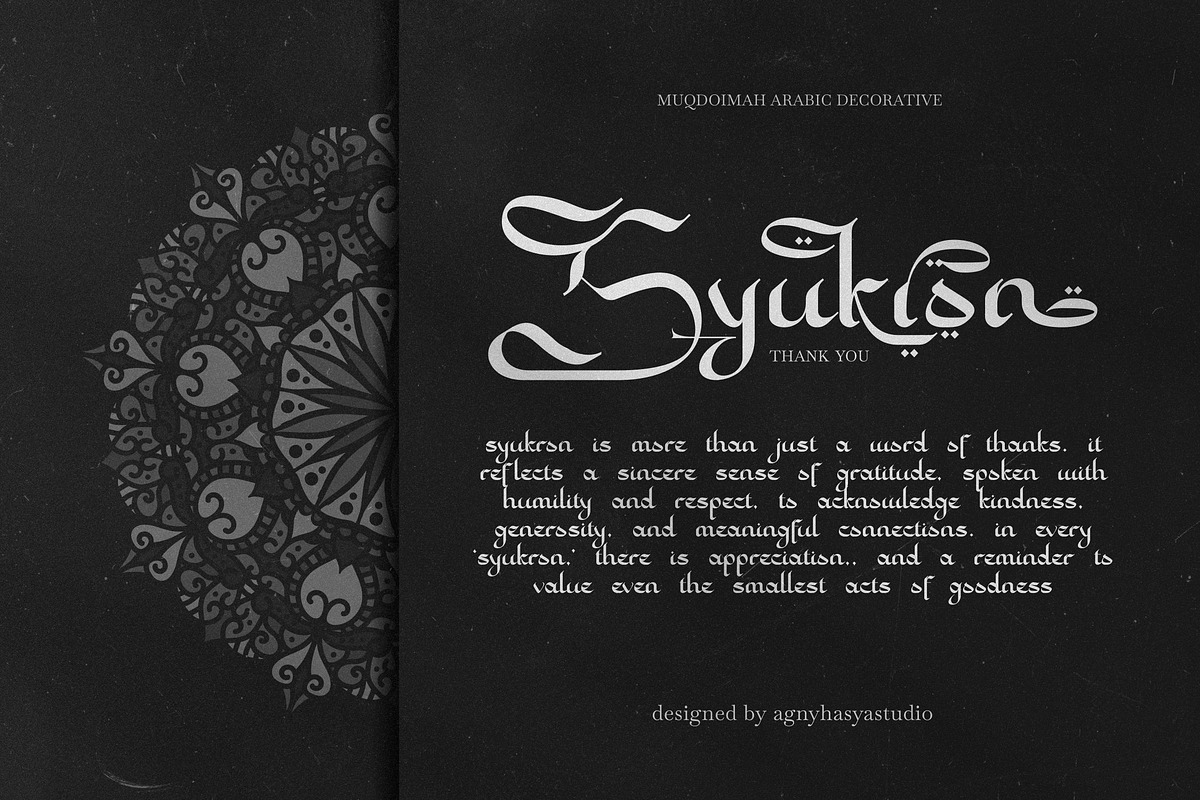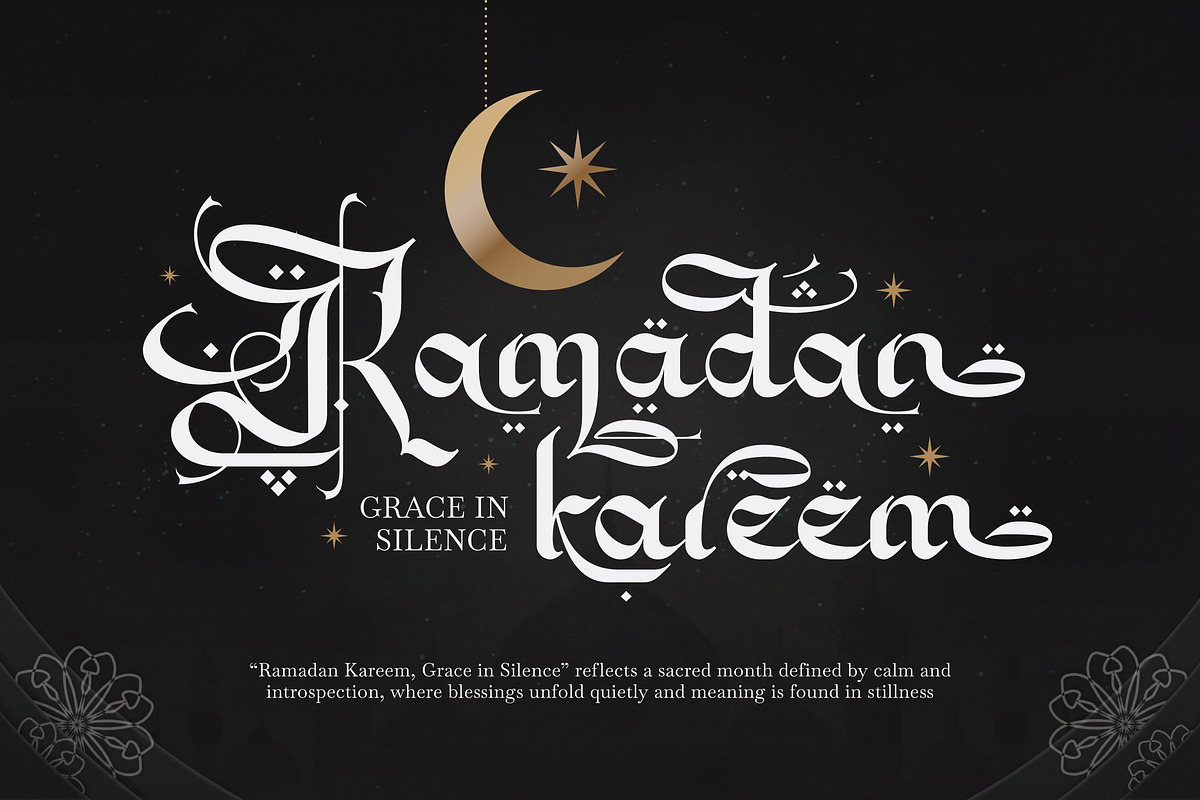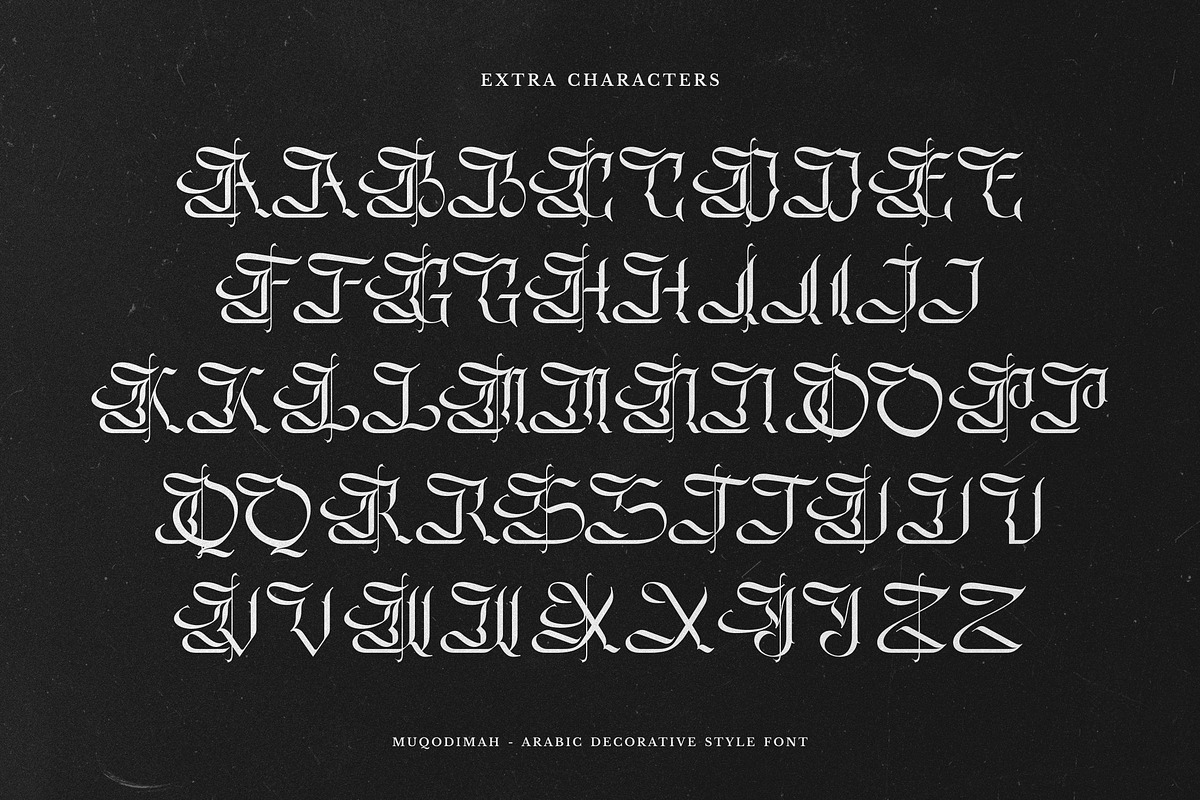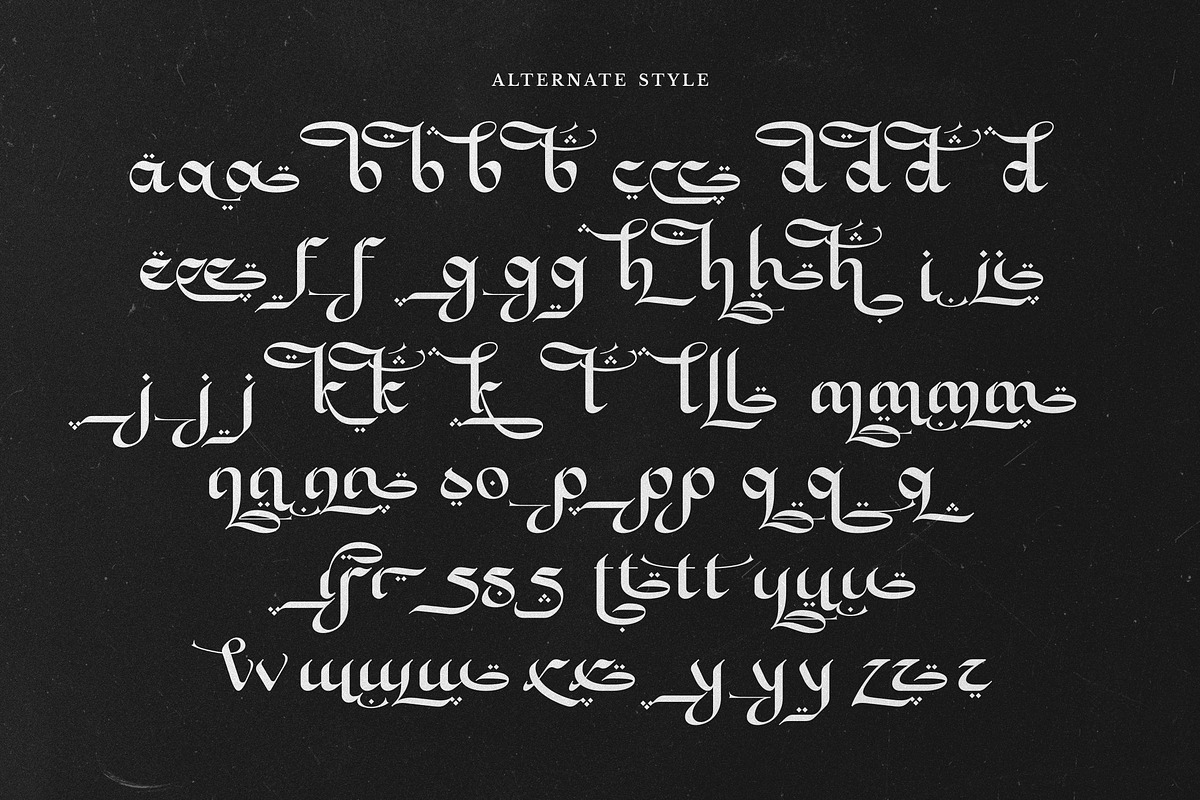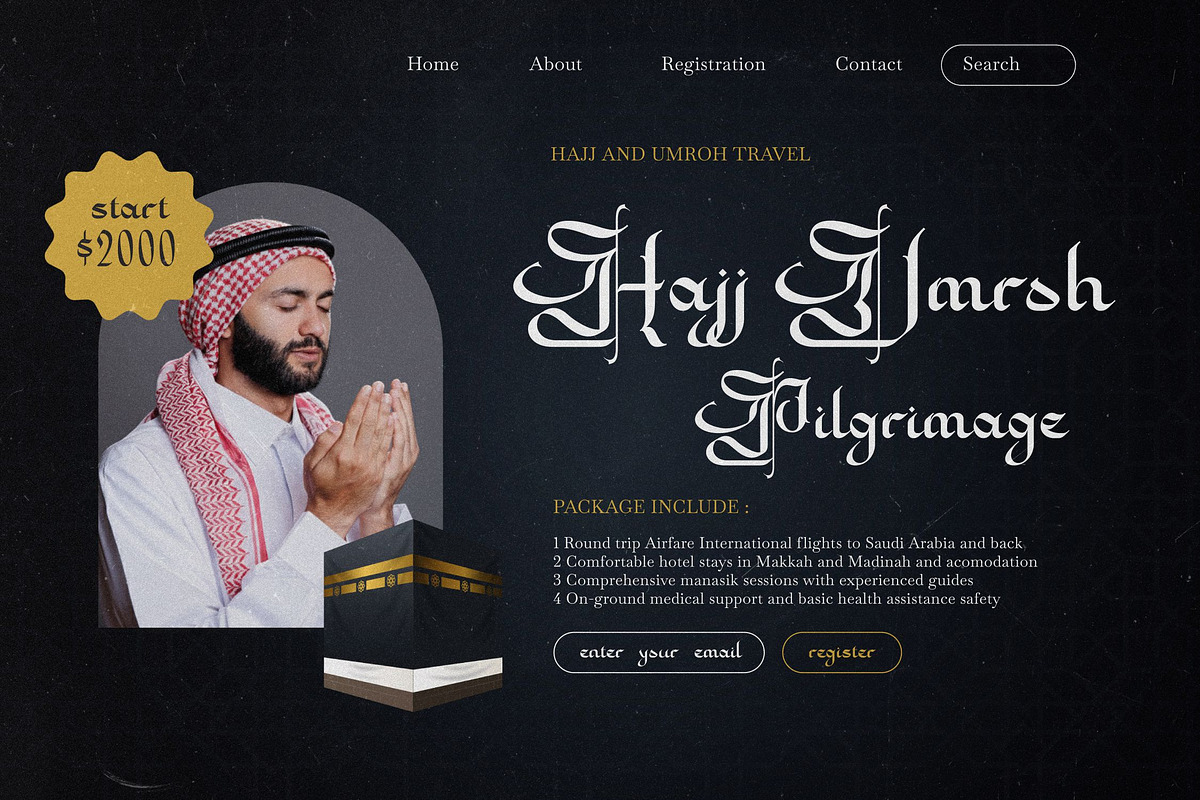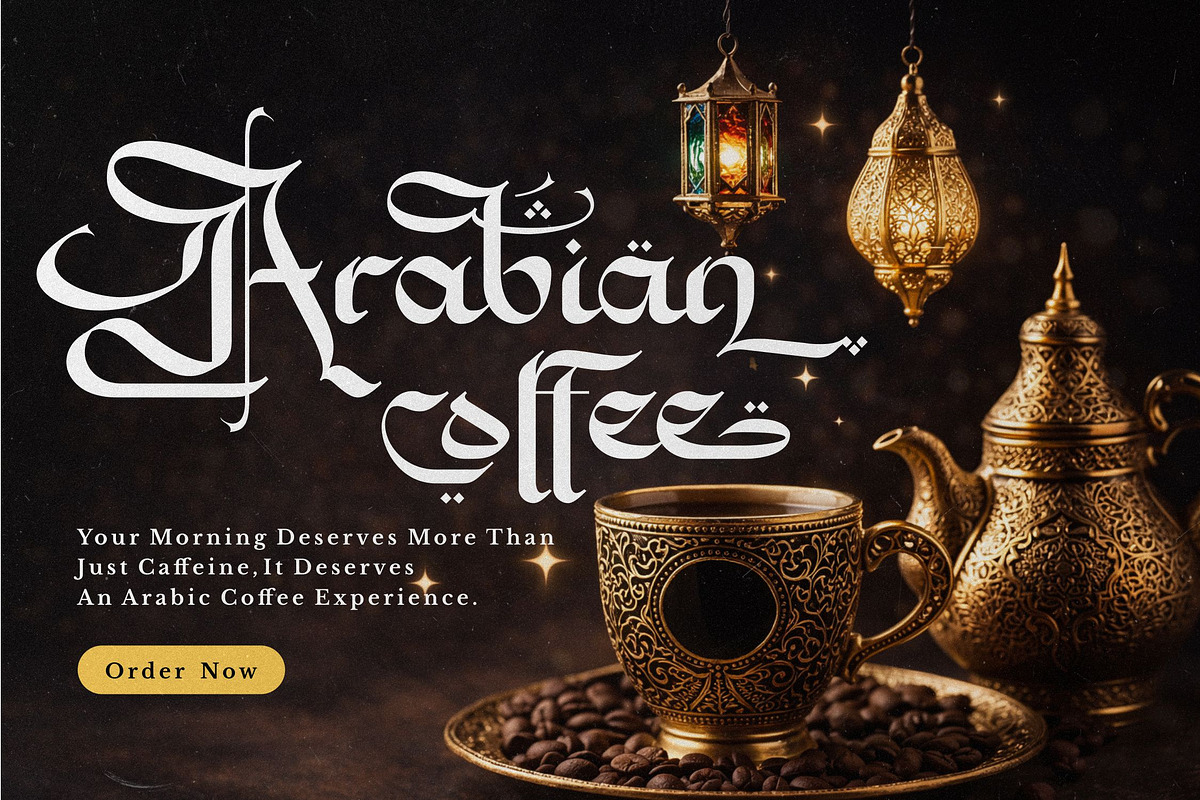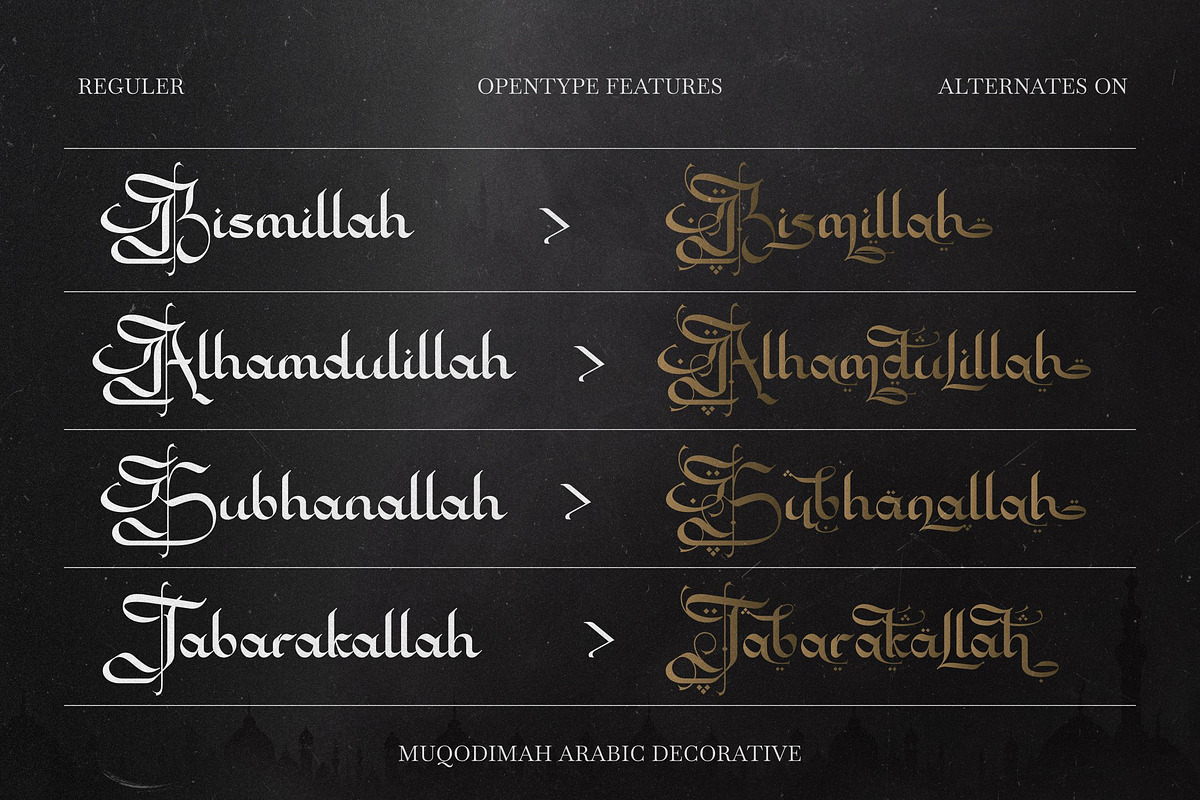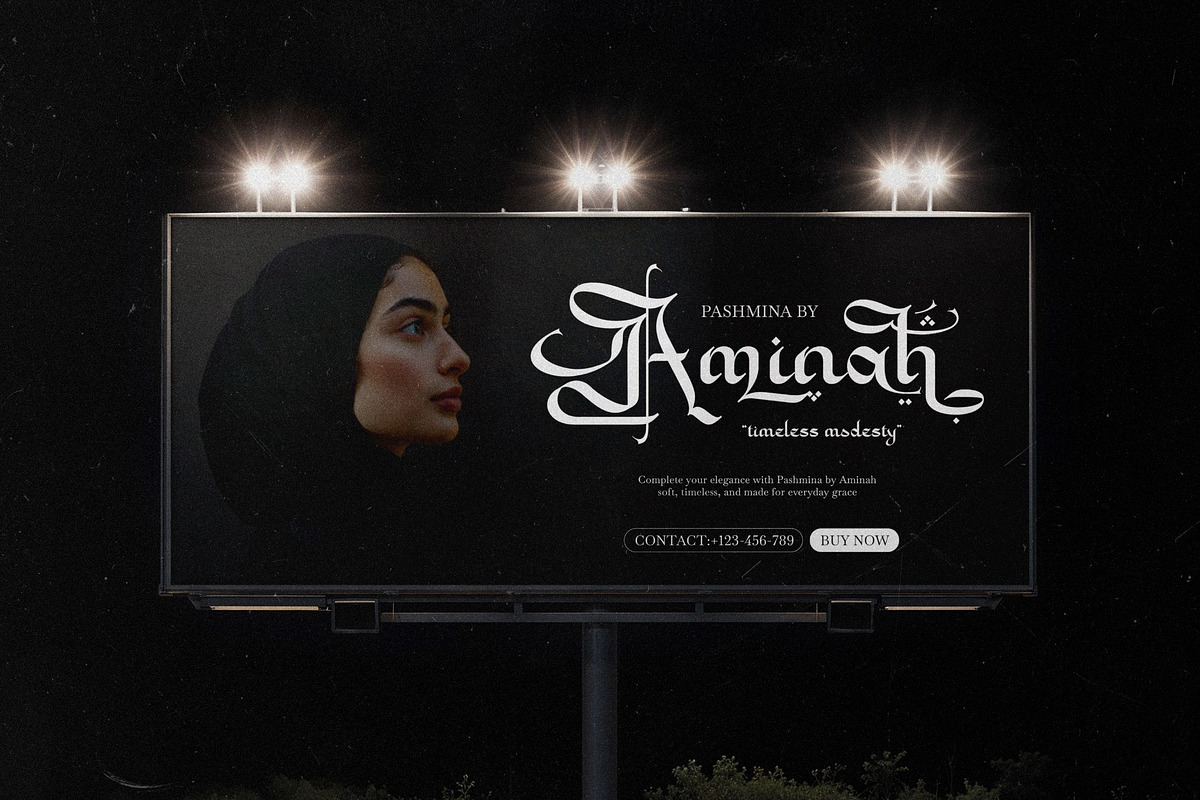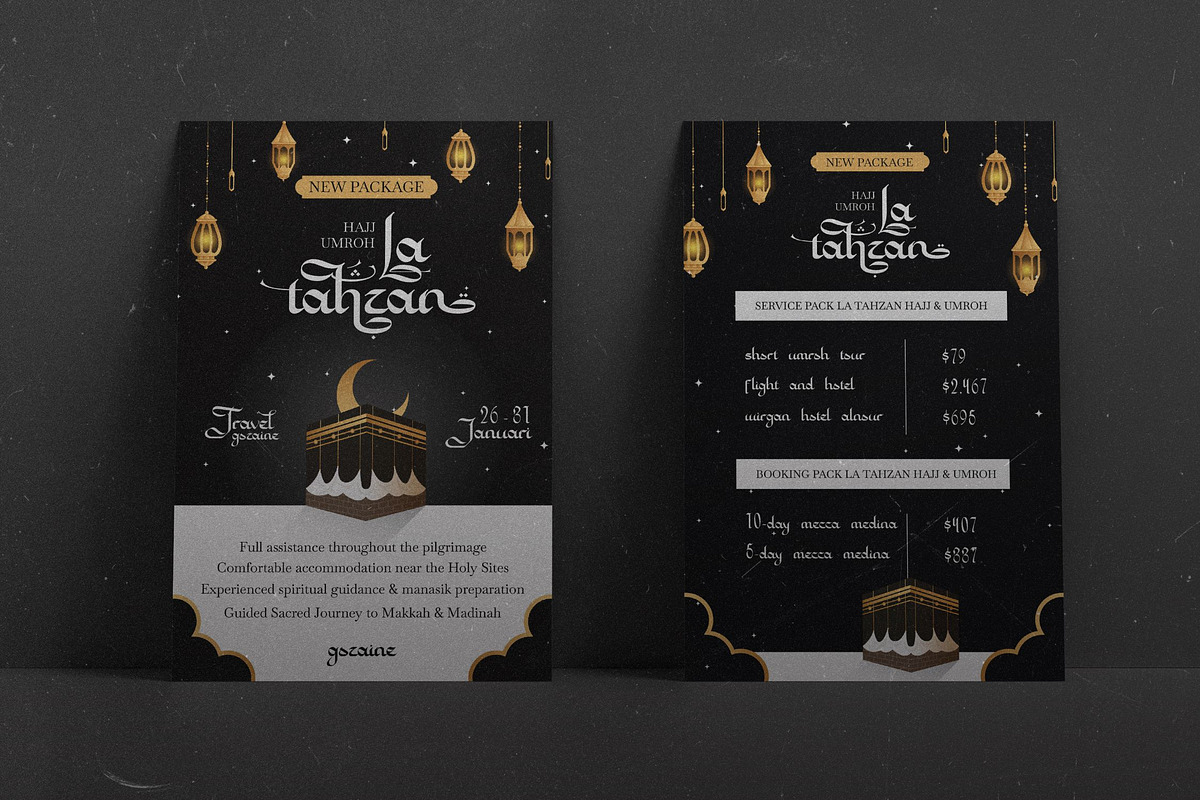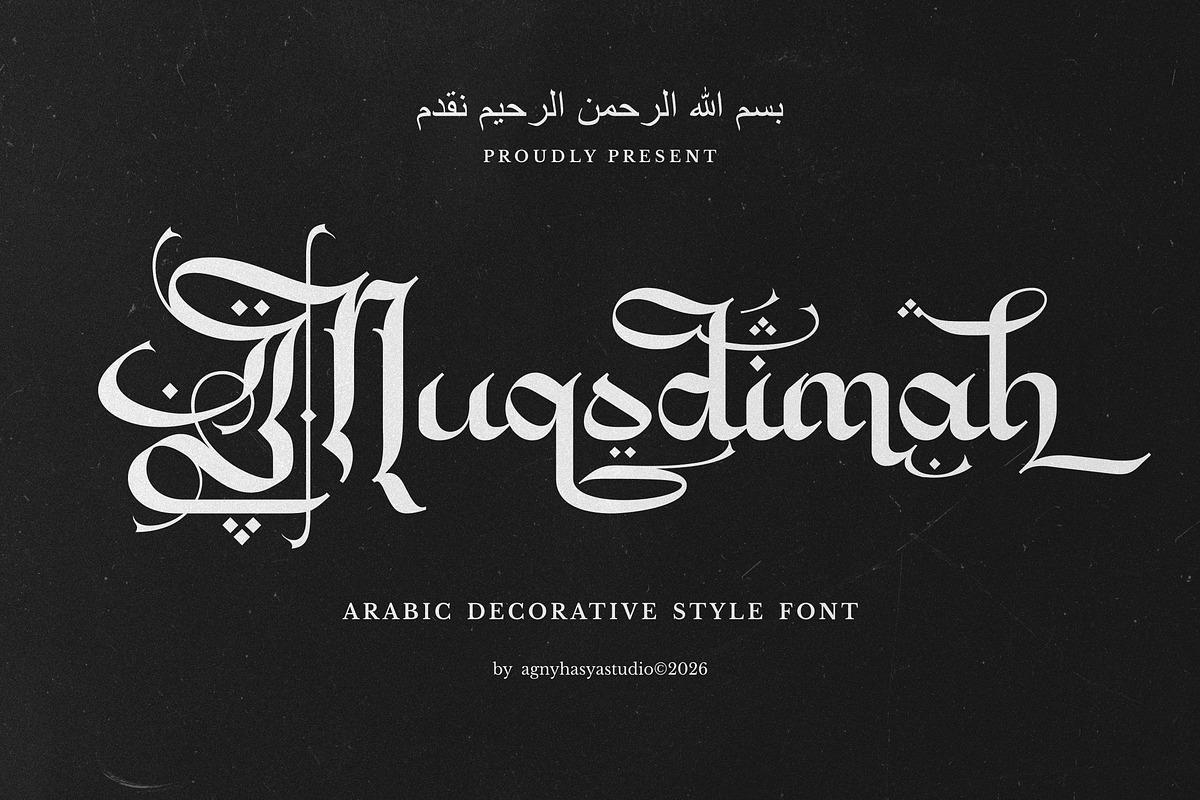
Muqodimah - Arabic Style Decorative
Muqodimah is a powerful Arabic-style display font inspired by vintage calligraphy, Old English lettering, and decorative Gothic aesthetics. Designed to evoke a sense of heritage, spirituality, and historical depth, this typeface delivers bold character with an artistic and ornamental presence.
With its sharp contrasts, dramatic strokes, and calligraphic rhythm, Muqodimah blends Arabic visual culture with classic gothic structure, creating a unique typographic voice that feels sacred, timeless, and authoritative. This font is ideal for expressive headlines where tradition meets artistic boldness.
Muqodimah is not intended for body text but shines as a statement font for titles, posters, book covers, and cultural or religious-themed designs. It offers a distinctive fusion of Arabic aesthetics and Gothic typography, perfect for designers seeking a font that conveys tradition, strength, and artistic depth. Its decorative nature makes every design feel intentional, expressive, and culturally rich.
- Islamic & Arabic-themed designs
- Religious posters & Ramadan projects
- Book covers & historical titles
- Decorative headlines
- Heritage branding
- Artistic typography compositions
- Uppercase & lowercase characters